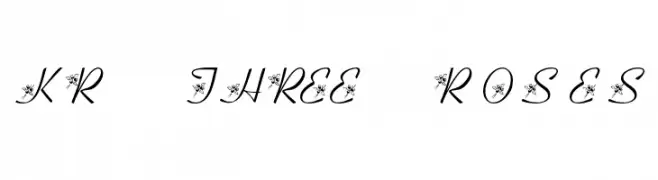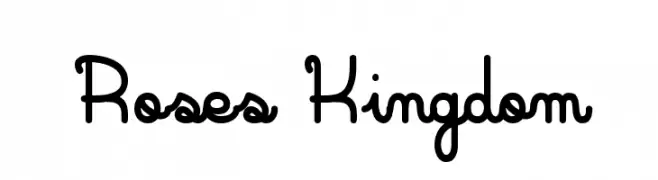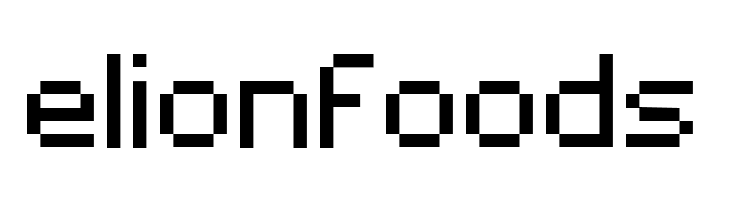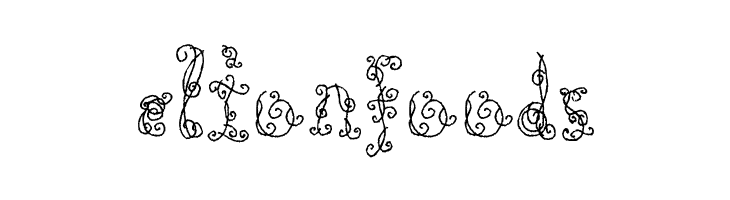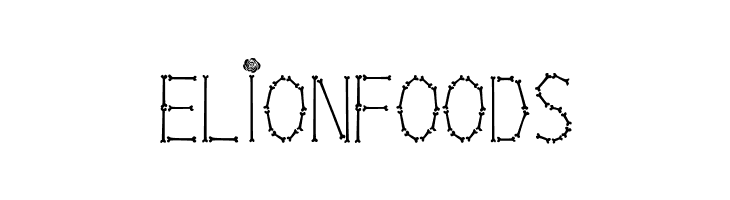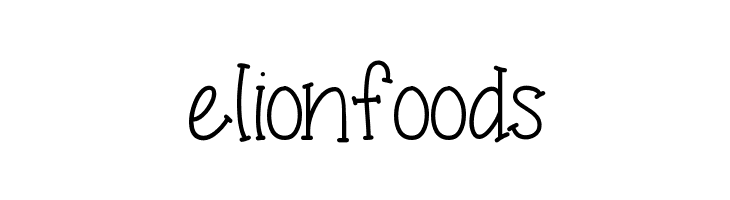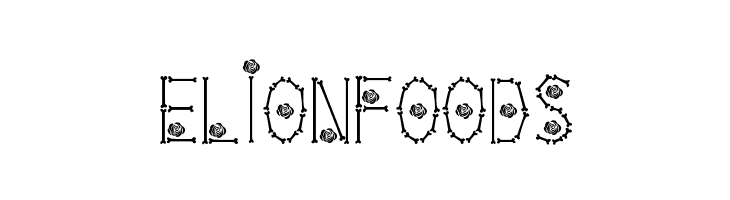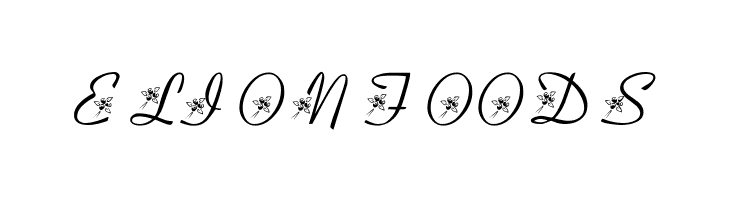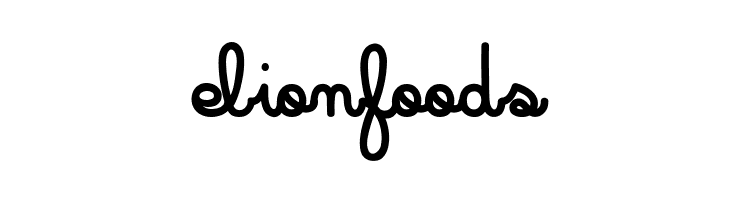
An artistic font combining skeletal elements with roses for a bold, decorative look.
Floral decorative font with rose-themed characters.
A pixelated, retro font with a blocky, digital appearance.
An ornate, vine-like decorative font with intricate, swirling designs.
A playful, hand-drawn font with tall, narrow letters and a whimsical style.
A playful, handwritten-style font with rounded, connected characters.
A playful, rounded font blending script and sans-serif styles.
A decorative script font with rose embellishments on each character.
A collection of decorative floral borders featuring intricate rose patterns.
An elegant serif font with decorative flourishes and a classic yet modern appeal.
An elegant script font with flowing, interconnected letters and ornate flourishes.
A bold, dynamic script font with fluid, energetic strokes and a handwritten feel.
A graceful script font with elegant, flowing characters and decorative flourishes.
A dynamic, fluid script font with elegant, flowing lines and cursive letterforms.
A sleek, modern font with clean lines and subtle contrast, perfect for contemporary designs.
A modern, sleek font with clean lines and a minimalist aesthetic.
A casual and elegant handwritten font with flowing, interconnected letterforms.
A bold, elegant serif font with high contrast and pronounced curves.
An elegant, flowing script font with a modern, handwritten style.
A playful, hand-drawn font with tall, narrow letters and artistic flair.
Ornamental dingbat set with compass roses and fleur-de-lis motifs.
A bold, playful font with exaggerated, chunky letterforms.
A decorative font with Valentine-themed icons and symbols.